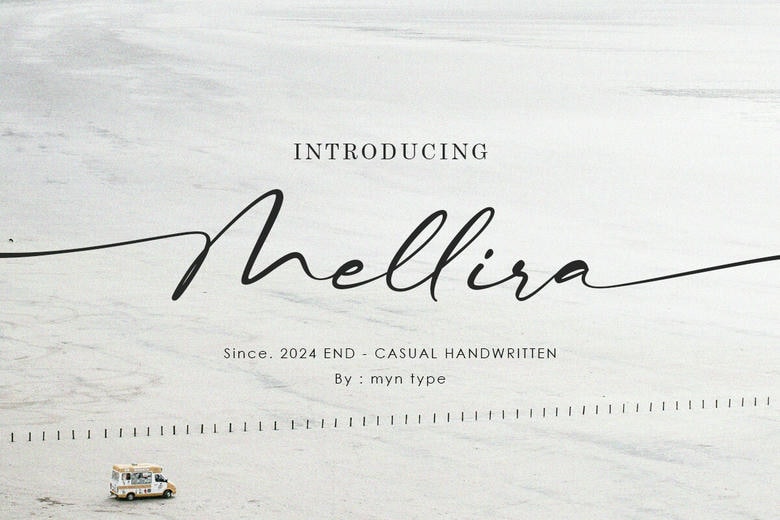
Mellira Font
Mellira Font as the clean, handwritten script font with a touch of luxury that has been perfectly balanced and crafted to life. Quick to create, and inspired by the organic aesthetics of handwriting, this typeface adds elegance and personality to any designs.
As a typeface with elegance flair as well as creativity it features amazing swashes to enhance the attractiveness of your texts. Great for weddings invitation, branding, quotes, logos, greetings cards and any other artwork creation.
Mellira Handwritten Script Font